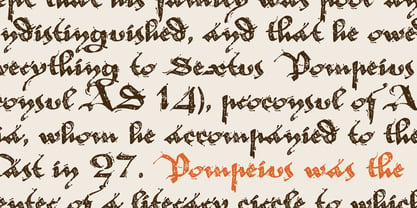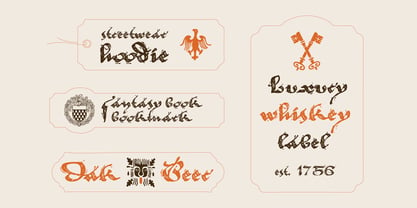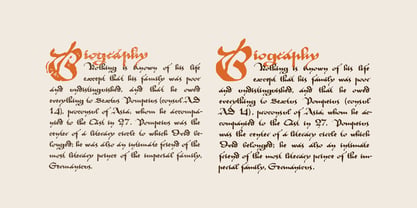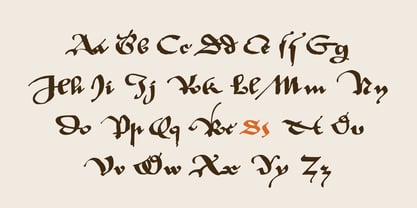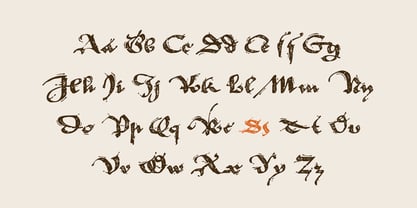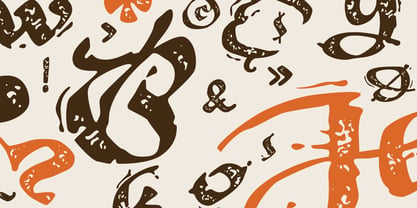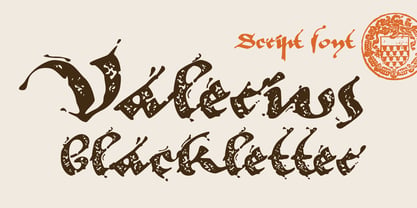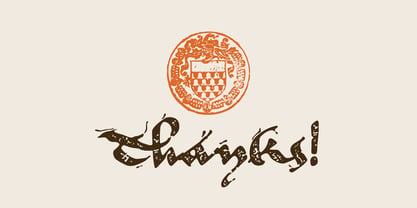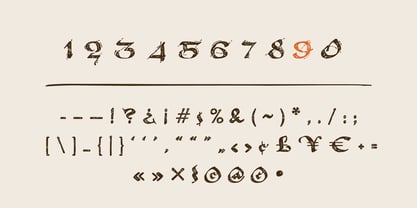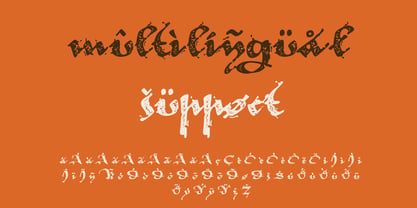
Valerius Blackletter
The story of Valerius started when I was exploring a library and found a rare 15th-century book called De dictis et factis memorabilibus. I loved the beautiful, flowing handwriting of the medieval scribe so much that I decided to bring it to life. I spent months carefully turning those ancient letters into a clean, modern font that anyone can use today.
Valerius is an elegant blackletter script font that mixes old-world gothic style with modern design. Its sharp lines and pretty swirls will give your project a premium, vintage, and slightly mysterious look.
Great for:
• Tattoos & Streetwear: Perfect for clothing brands, merch, and flash art.
• Packaging: Adds a luxury look to wine labels, perfumes, or cosmetics.
• Books & Games: Bold titles for fantasy book covers, posters, and gaming.
Included
• Original and Regular styles
• Uppercase & lowercase
• Numbers & punctuation
• Multilingual support